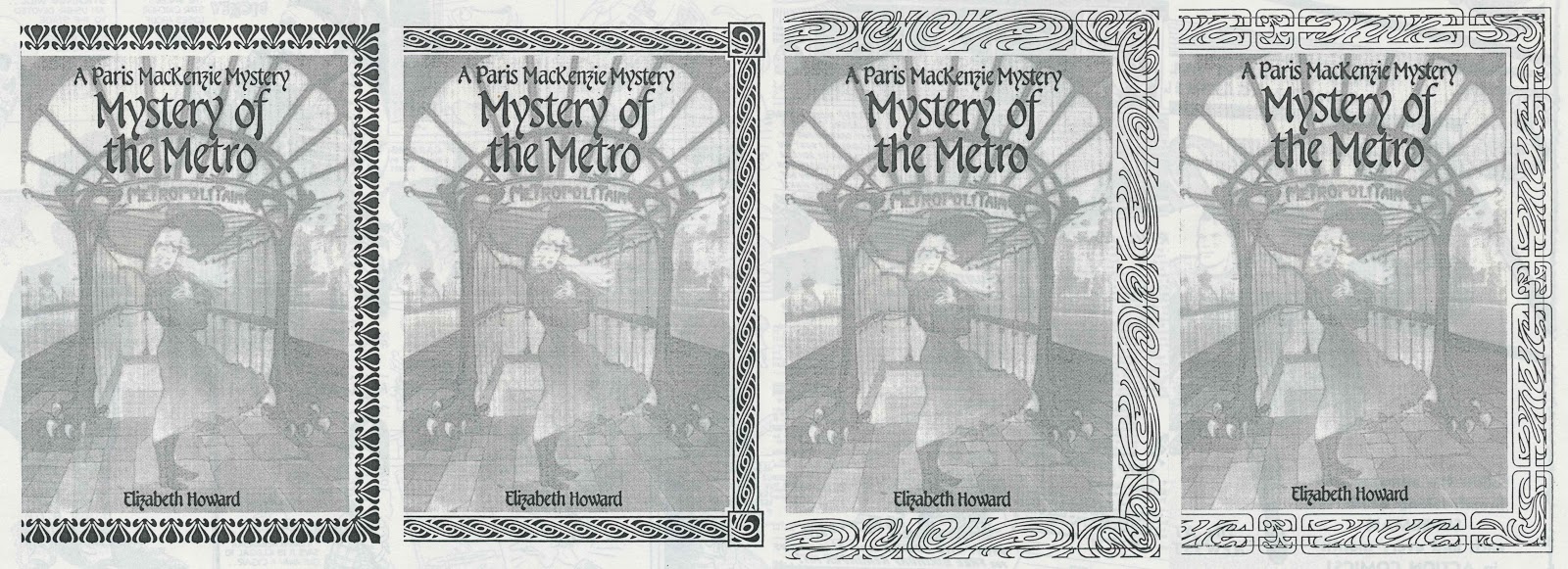
My Name Is Paris was a 1987 four-book mystery series produced by the late Byron Preiss. The stories were written by Elizabeth Howard and illustrated by Michael William Kaluta. The logo and titles were lettered by Tom Orzechowski.
Once Byron secured the author and illustrator, he had to find a publisher. He described the project to me and suggested a design direction for the covers: a wrap-around decorative border. Originally, the series title was “A Paris Mackenzie Mystery”. Below are photocopies (stitched together) of the cover with different borders and fonts.
Random House picked up the series. Discussions between Byron and the publisher resulted in the series being retitled “My Name Is Paris”, and the cover design was to emulate the Art Nouveau style. I referred to the Alphonse Mucha books in my library.
Preliminary sketch
Tracing paper placed over the sketch and the design developed a bit.
The same steps as above.
Alternate symmetrical designs
Some asymmetrical design sketches
Roughs for the back cover design
These four designs were submitted but none were chosen.
At the time I had a heavy workload. I suggested Tom Orzechowski handle the lettering and border design, and Byron agreed. I shared my sketches with Tom and told him to come up with his own design. Tom used a number of lettering books for reference.
Photocopy of Tom’s first border design.
Photocopy of preliminary title and logo lettering
Photocopy of revised border design with lettering
Photocopy of Tom’s sketch with revised border
Tom’s note to me
Photocopy of two titles on an arc
Photocopy of another border revision before the the final version
The border was symmetrical so I told Tom to draw half of it. A film positive was made of the art. The film was flopped and the two halves joined together. A photostat was made of the complete border. After 25 years the film has yellowed.
The titles and logo were positioned on an acetate overlay then a photostat was made of it for the mechanical. Below, the acetate shrank near the top, with flares visible on the ripples.
The Random House mass market paperback covers of books one, Mystery of the Metro; two, Mystery of the Magician; three, A Scent of Murder; and four, Mystery of the Deadly Diamond.
Title page design
Photocopy of revised title page design with the border from the cover.
The logo was repositioned and placed on an acetate overlay.
A photostat was made for the mechanical. ITC Berkeley was used for the title, credits and publisher. Below, the printed title page from the first book.